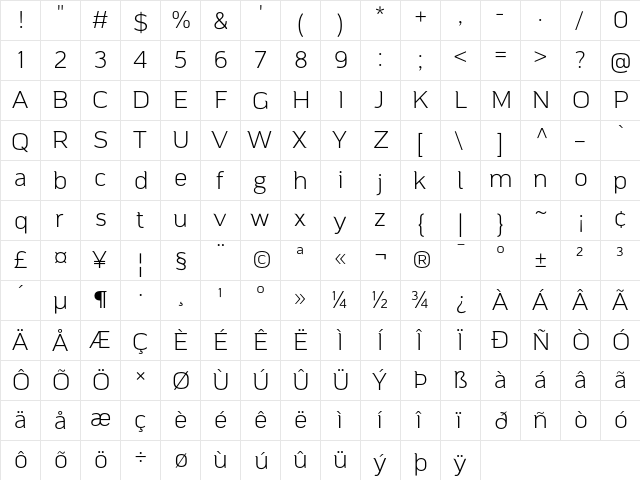
Mainlux Light
| Designer | YUSUF NIKI SYAHRONI |
Design Context for Mainlux Typeface
Mainlux takes a measured approach to typography — its balanced proportions and neutral character make it a reliable workhorse for both digital and print work. The delicate stroke weight brings airiness and refinement to layouts.